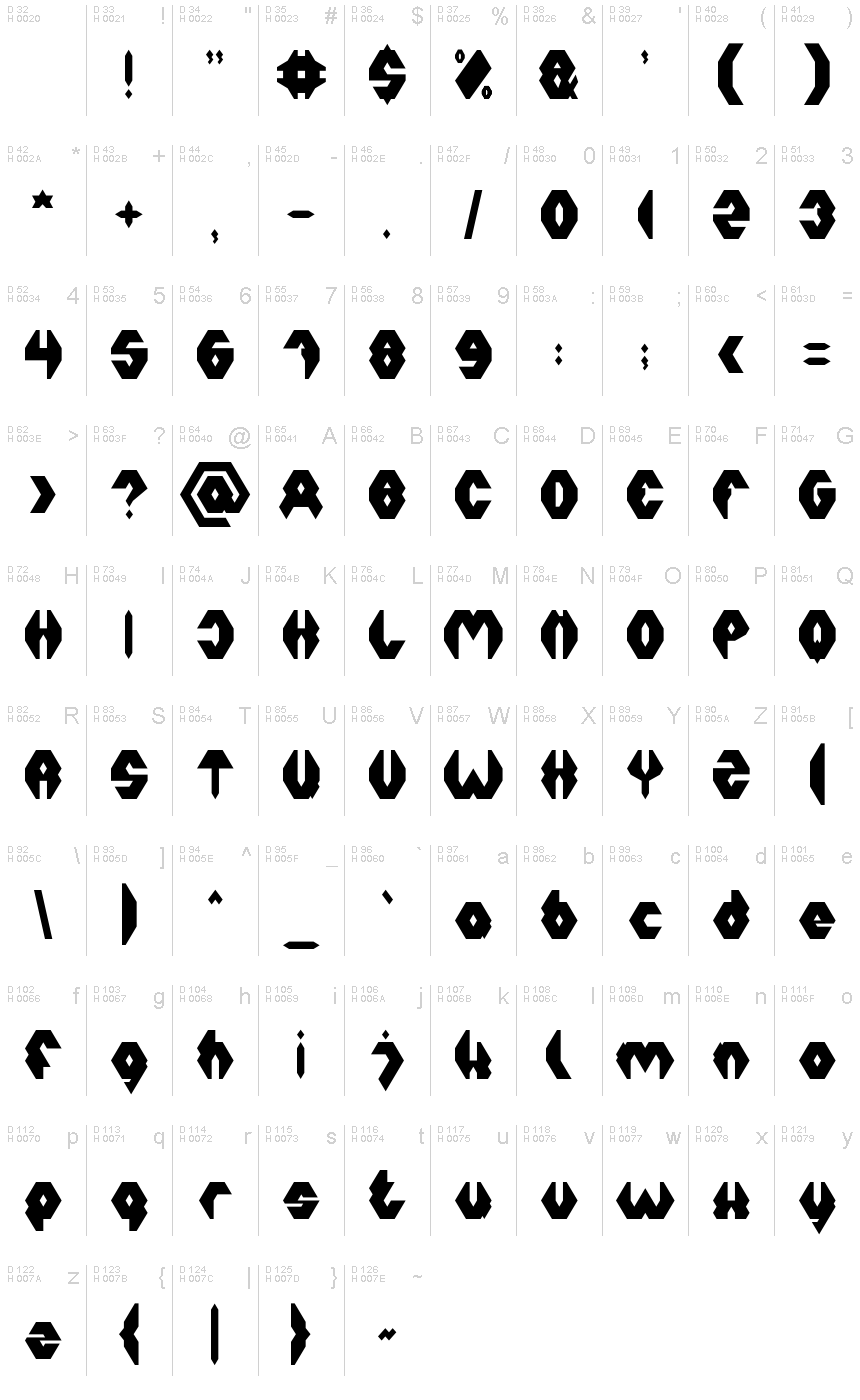
AIRCRAFT
Aircraft font, designed by weknow, is a striking display font featuring a bold and techno-inspired style. Its geometric and angular letterforms create a futuristic aesthetic perfect for projects seeking a modern edge. The bold weight of Aircraft makes it ideal for capturing attention in headlines, posters, or tech-themed designs.
Explore the dynamic potential of Aircraft font and transform your design projects with its unique flair.